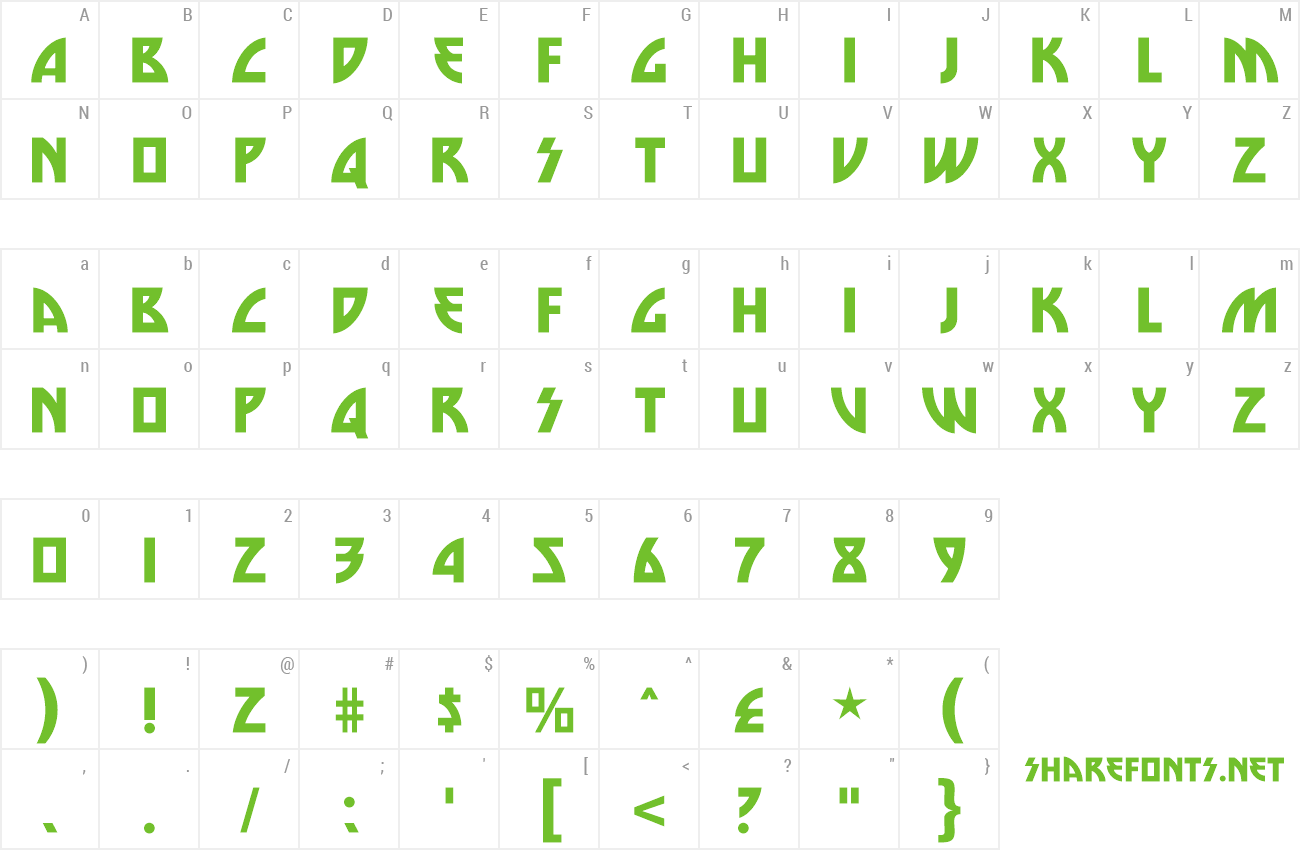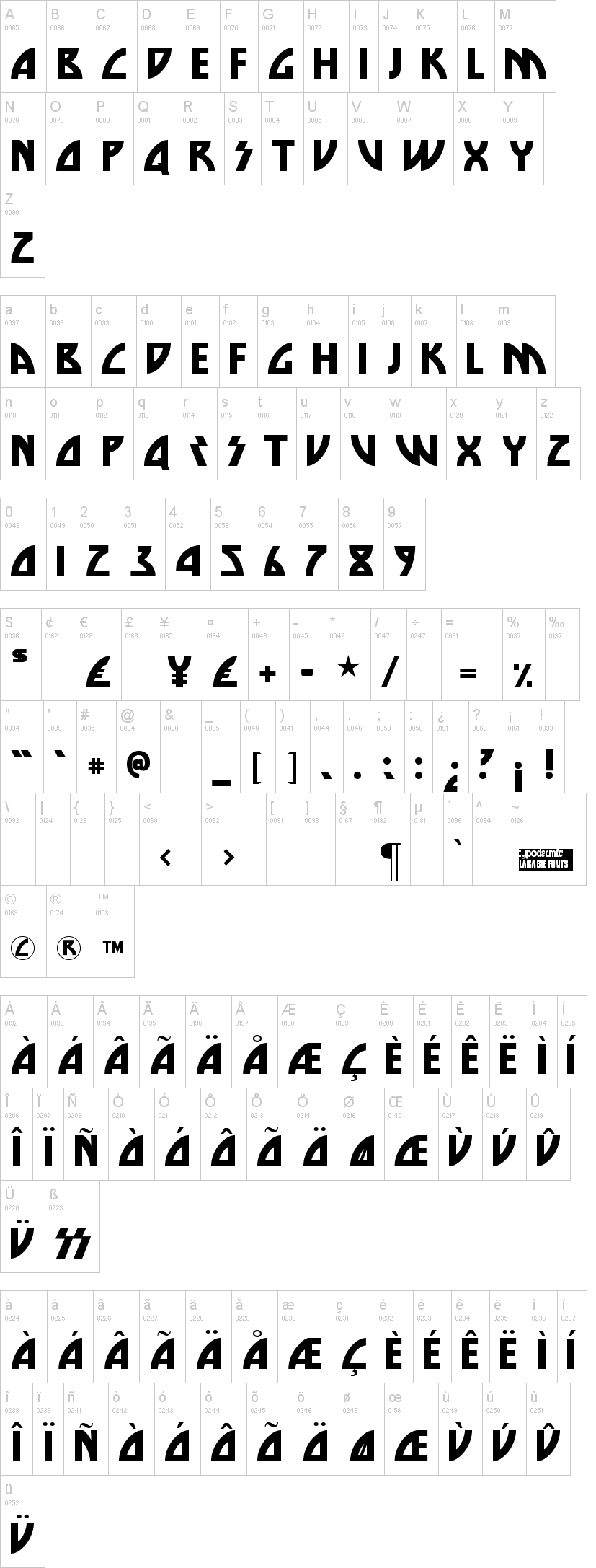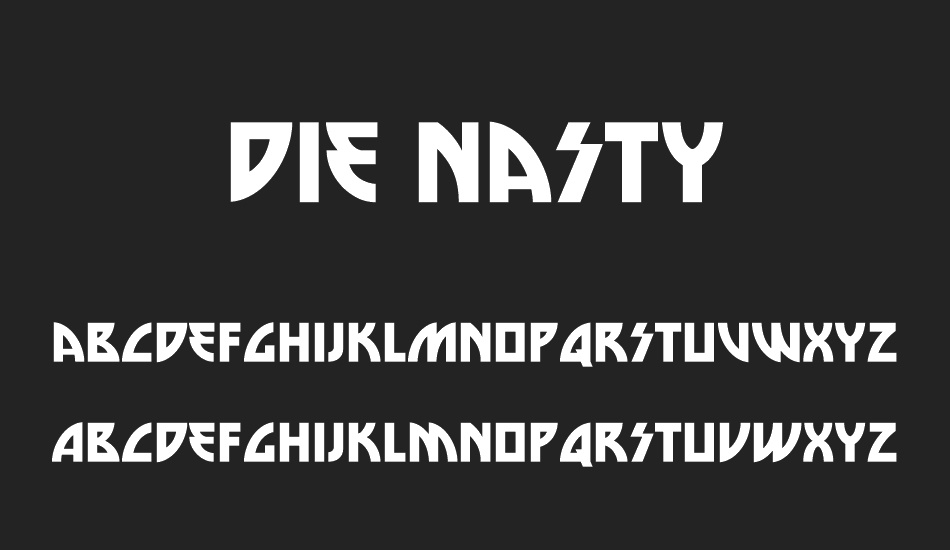
Die Nasty Font
Die Nasty Font - A, m, v, and w all have variant forms that automatically appear in. Die nasty is a glitzy arts & crafts headline typeface with a glam rock pedigree. It is decorative font and has 2 styles. Download free die nasty font by typodermic fonts.